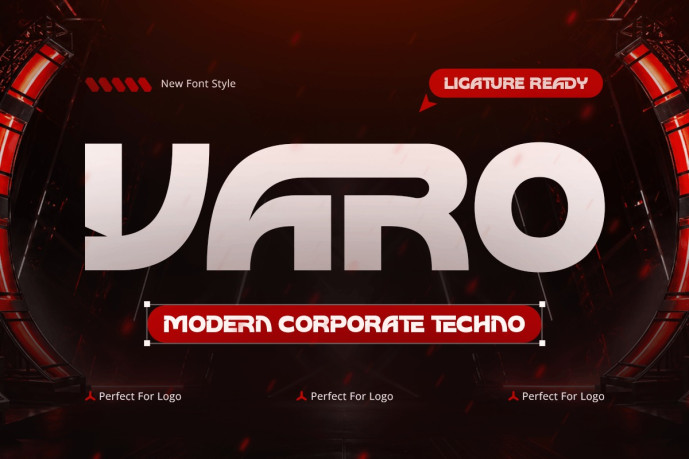
Varo – Modern Corporate Techno Font
Varo – Modern Corporate Techno Font is a clean and contemporary techno font designed for technology branding, corporate identities, startup logos, and professional digital communication. Inspired by modern innovation, precision engineering, and corporate design systems, Varo combines refined typography with subtle futuristic details to create a strong and trustworthy brand presence.
Featuring modern geometric letterforms, balanced proportions, and clean techno-inspired styling, Varo delivers excellent readability while maintaining a distinctive technological character. Its versatile design is ideal for logos, branding systems, presentations, websites, marketing materials, and digital products that require a professional yet forward-thinking appearance.
Whether you’re launching a technology startup, building a corporate identity, designing a software brand, or creating business marketing assets, Varo provides the clarity and sophistication needed for impactful visual communication.
Varo Font Features
Character Set: Uppercase, lowercase, numbers, symbols, and punctuation
Modern corporate techno letterforms optimized for branding and logo design
OpenType features ready to enhance your design needs
Varo is Perfect For
Technology startup branding
Corporate logo and business identity design
Software and digital product branding
Technology company marketing materials
Website headers and user interface design
Professional business presentations
Contemporary display typography
Innovation-focused visual identity systems
Whether you’re creating a technology logo, developing a corporate identity, launching a digital startup, or designing professional marketing materials, Varo delivers the precision, innovation, and credibility of a modern corporate techno font built for forward-thinking brands.